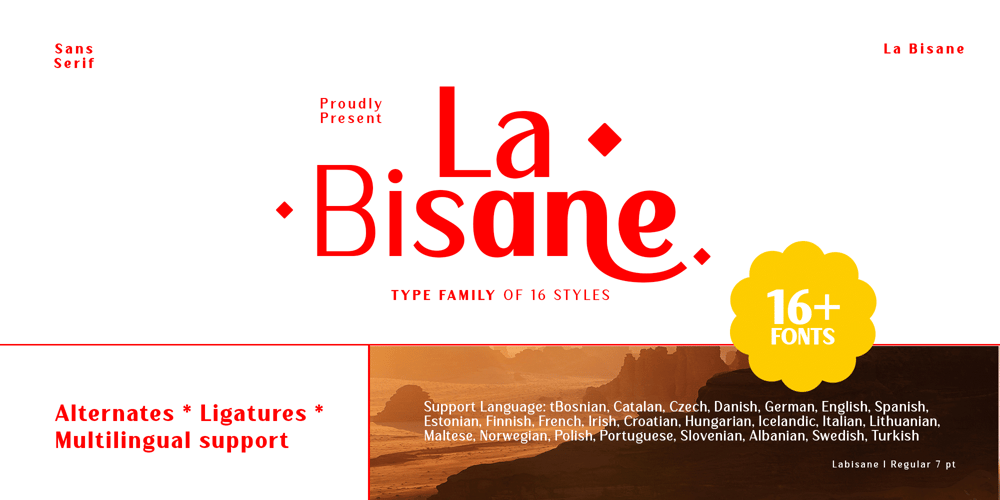
La Bisane Font Family was designed by Sidik Sidik and published by Differentialtype. La Bisane contains 16 styles and family package options. La Bisane is a sans serif family with eight weights, and eight italics. It is suitable for your word documents, editorial design, packaging, web text, and many other projects.La Bisane is also equipped with alternates that are easily accessible with the PUA code.